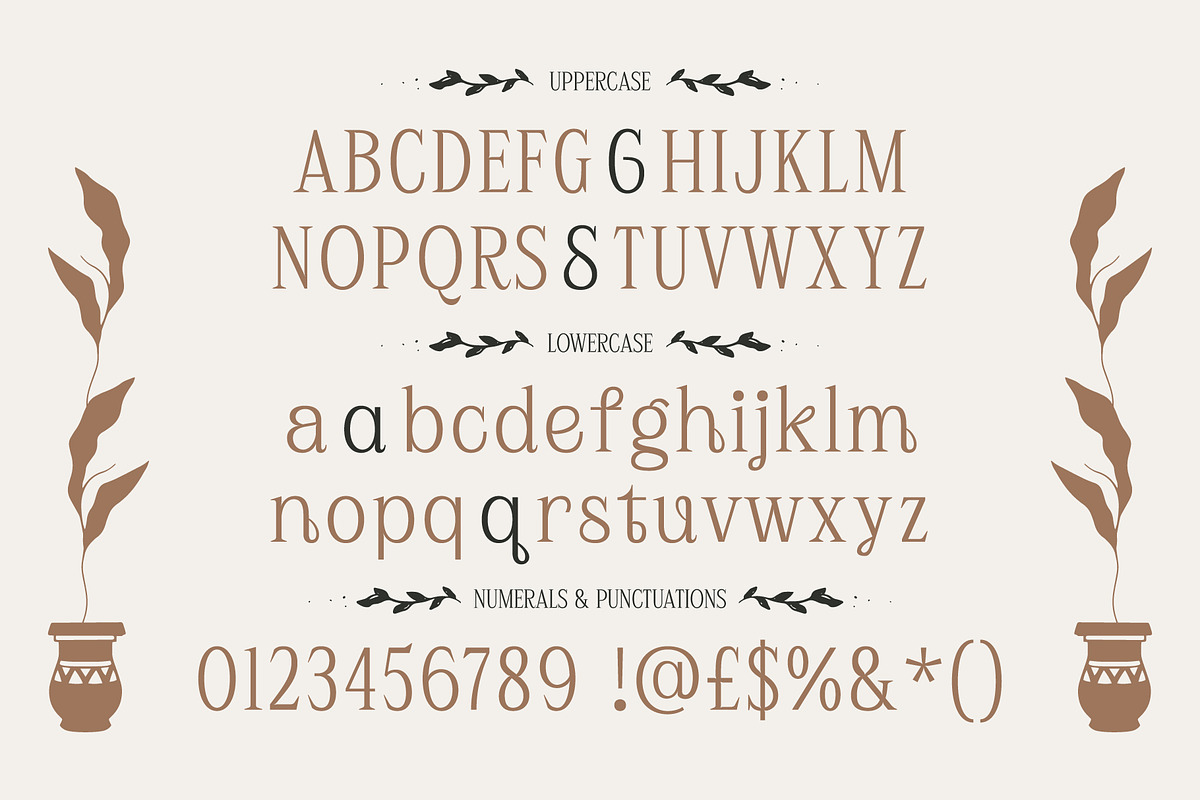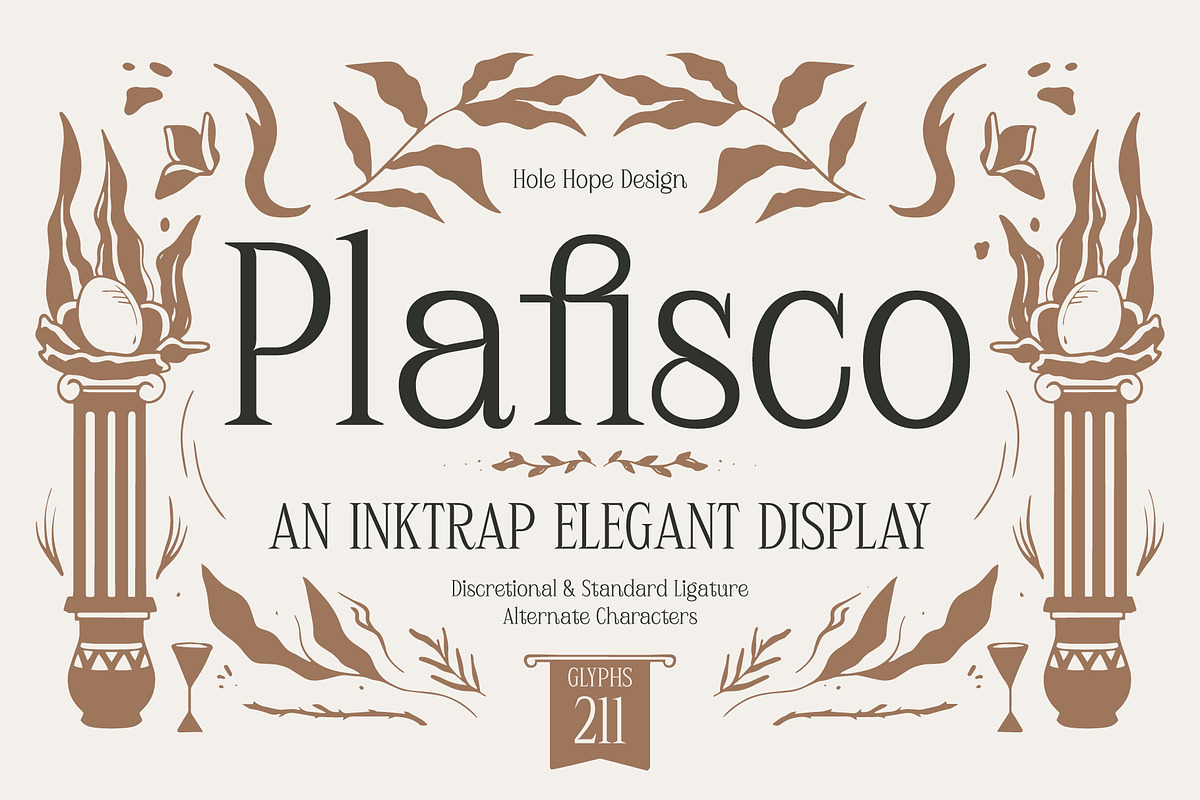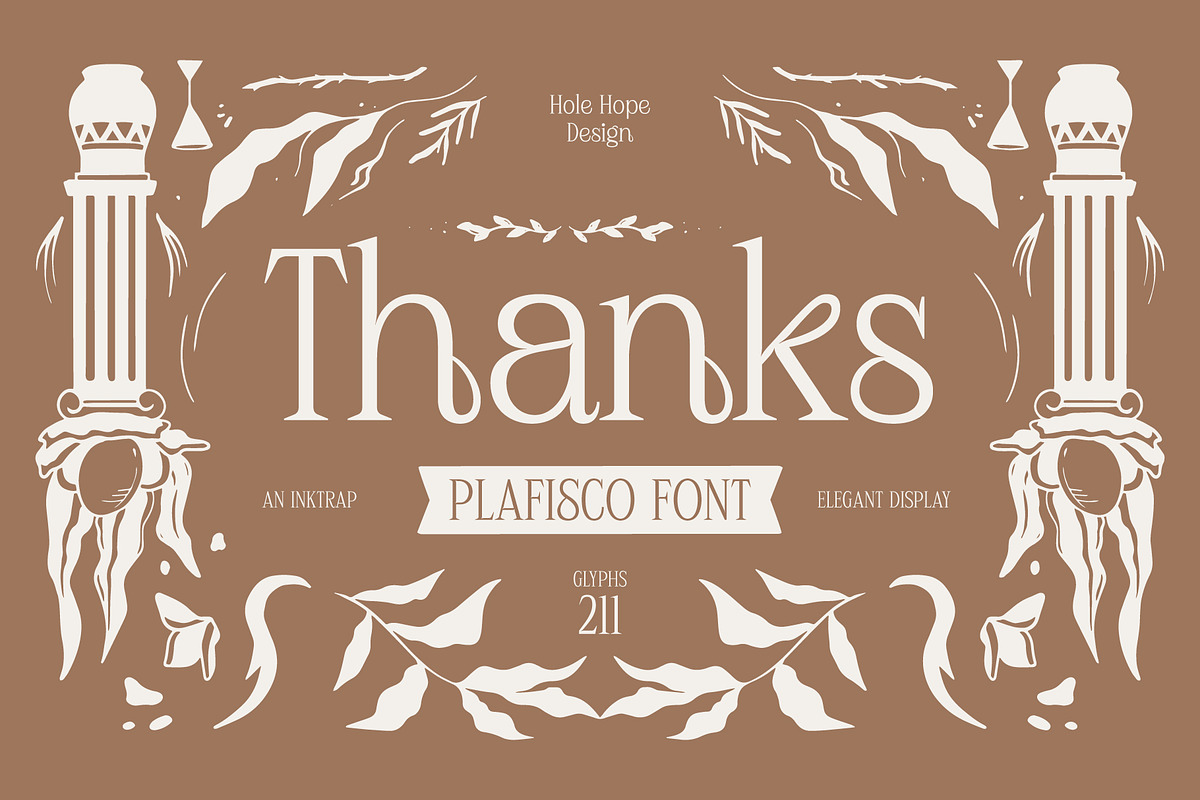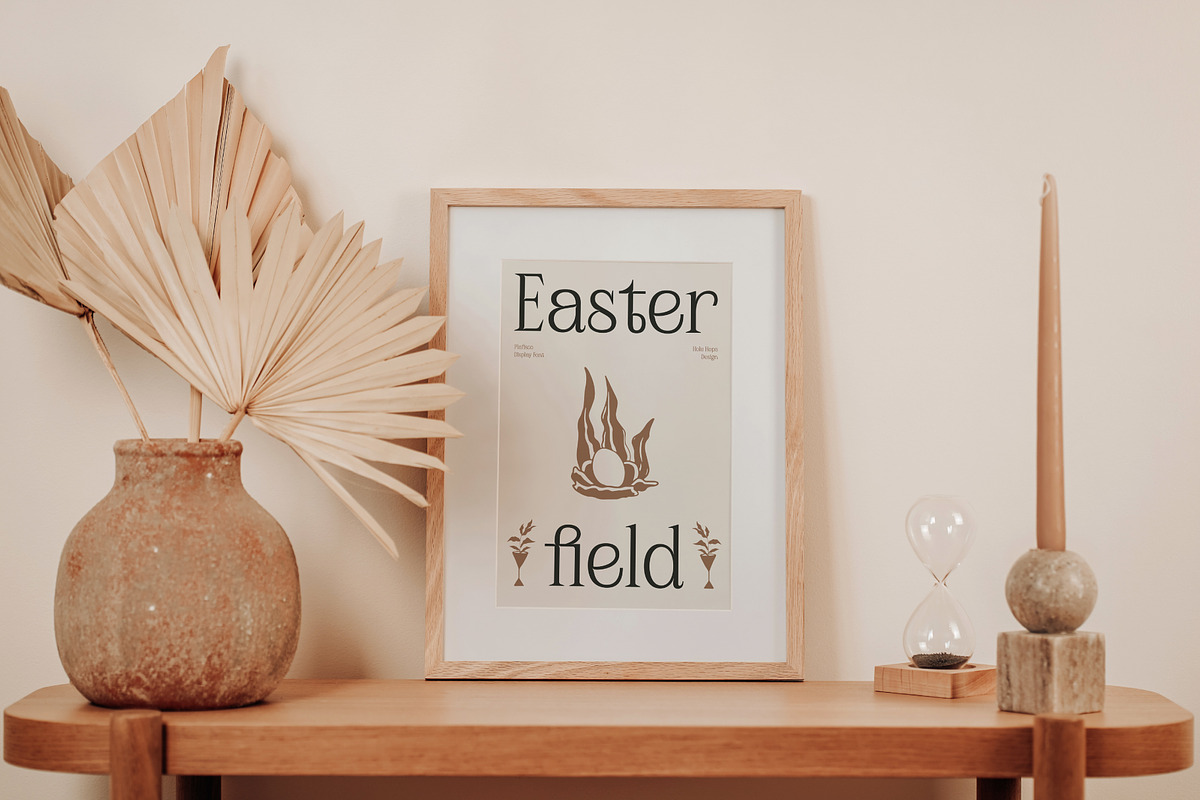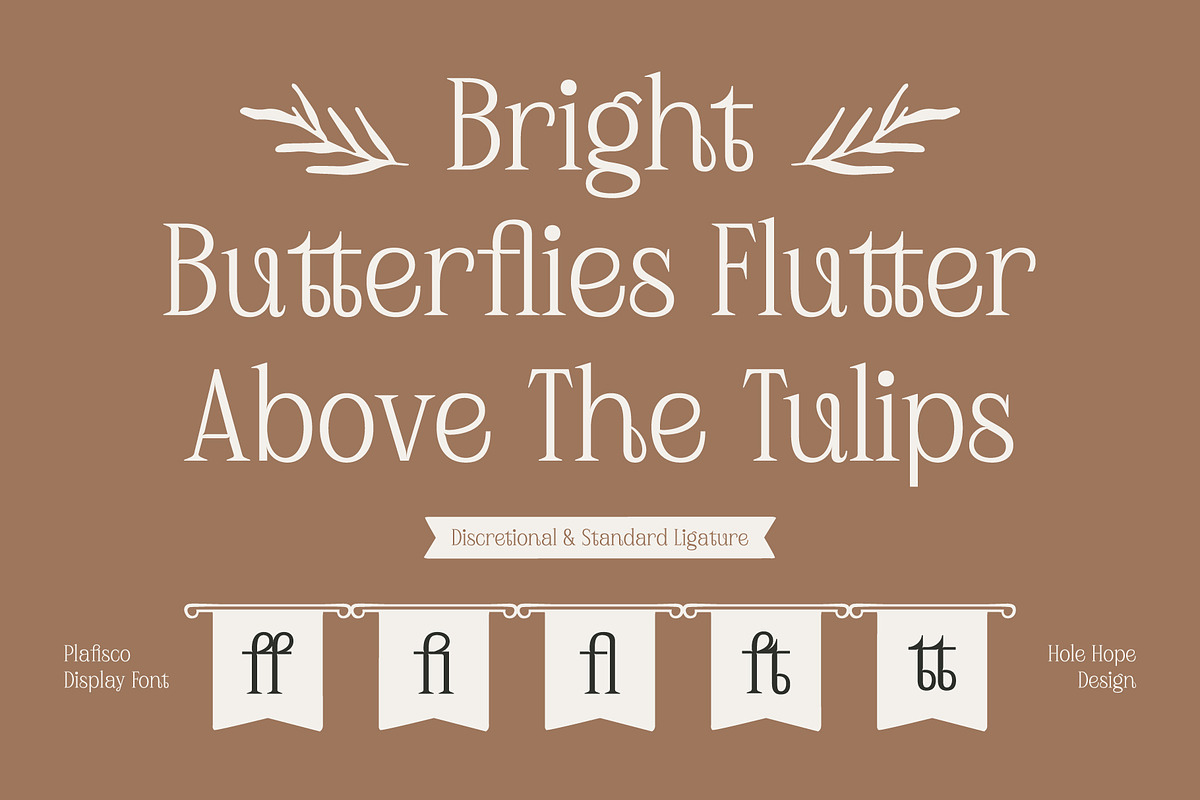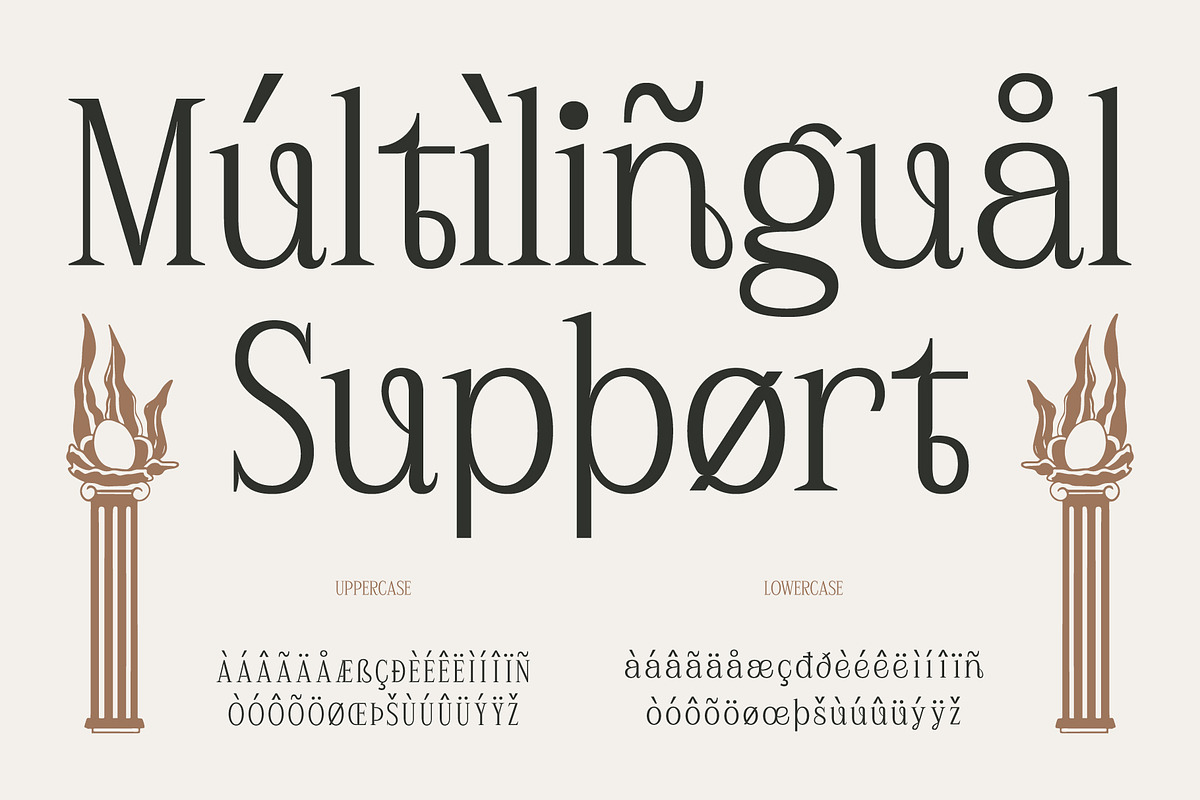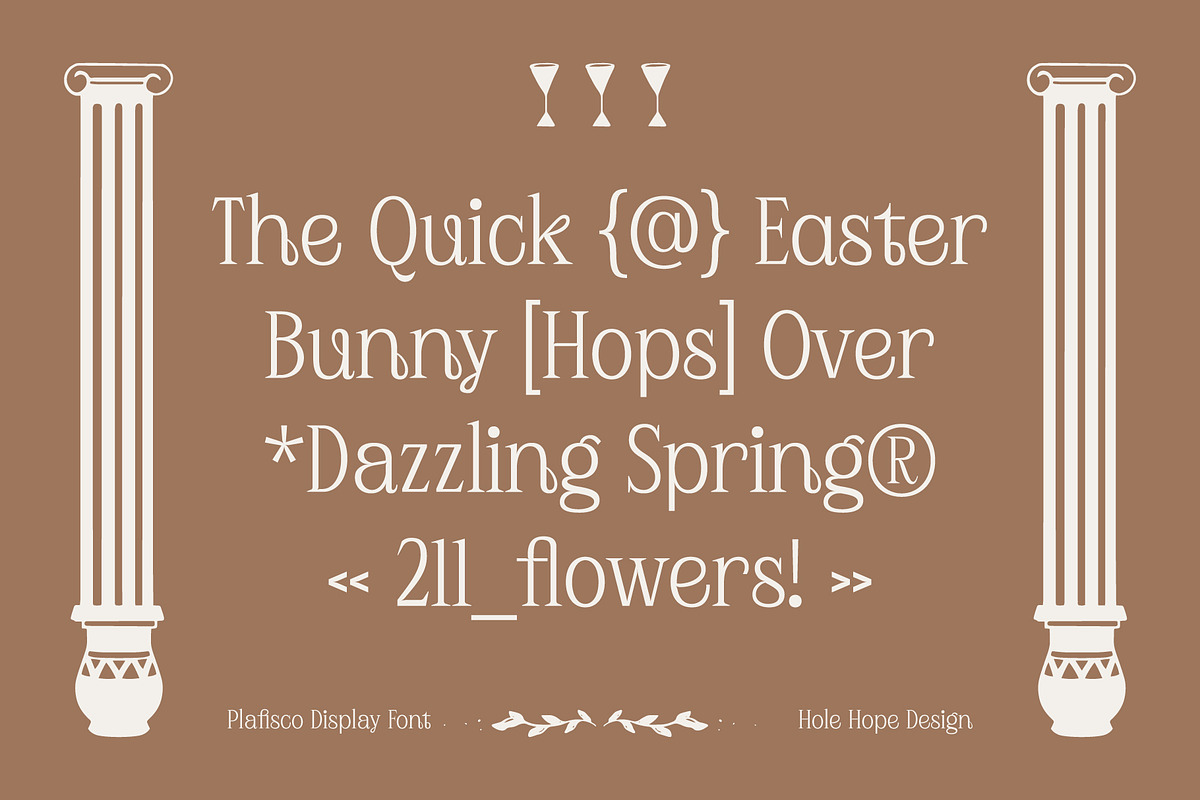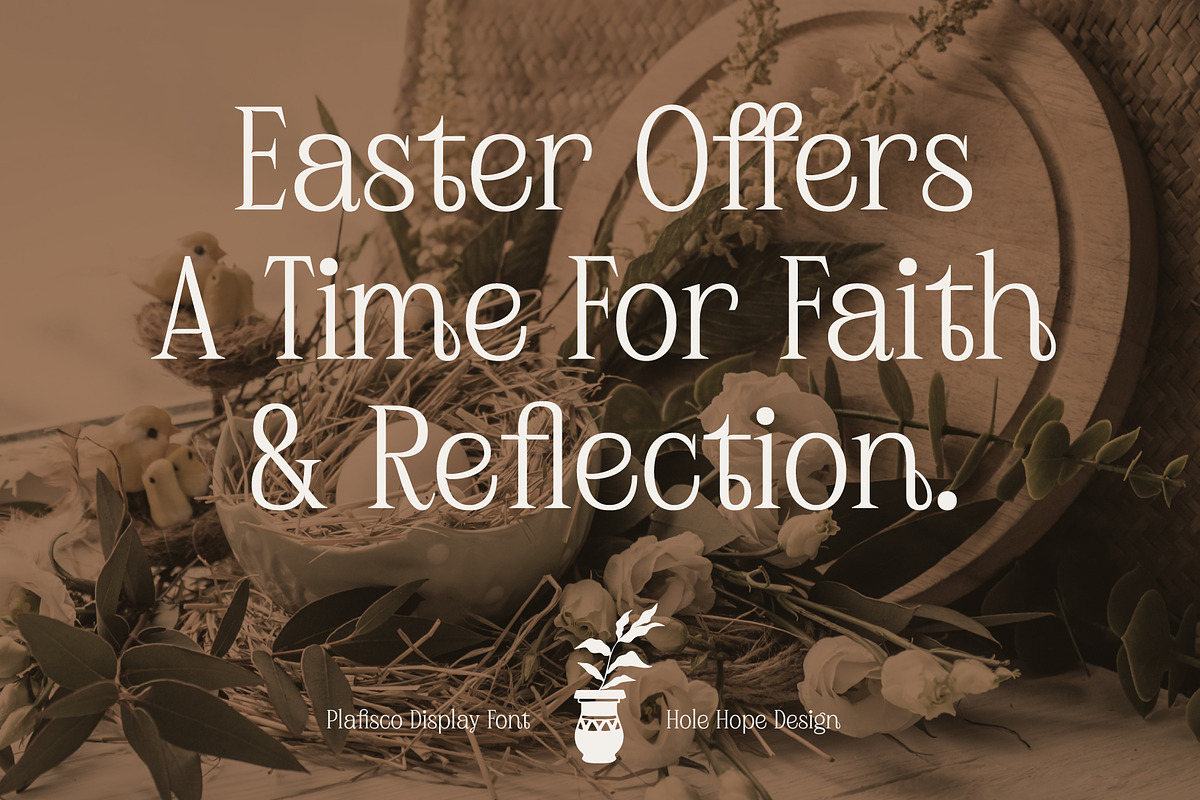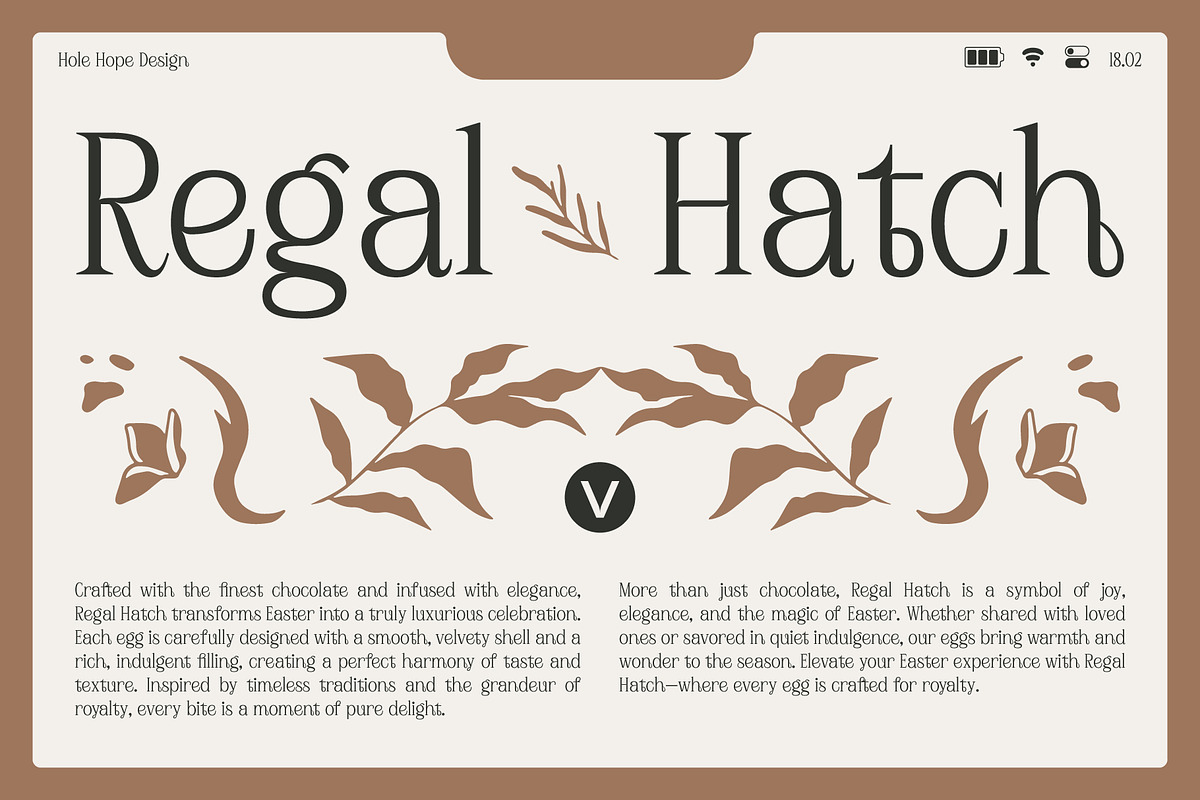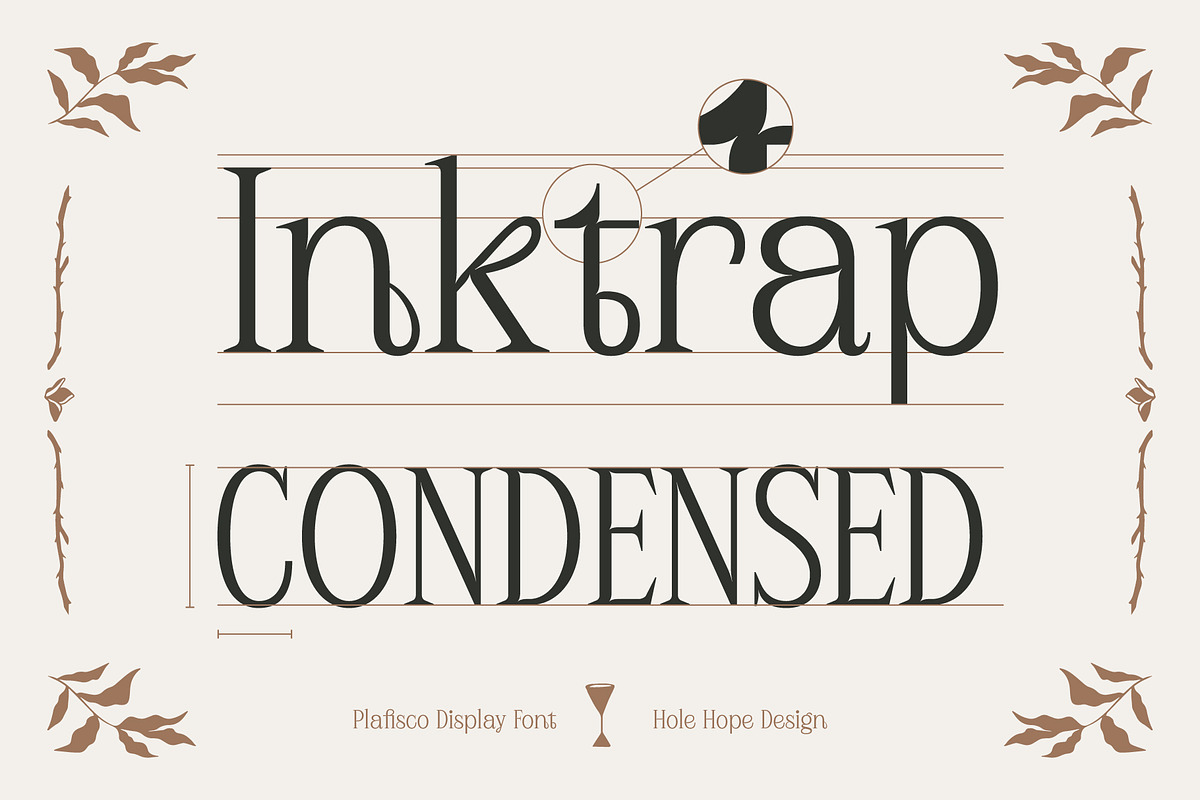
Plafisco | Inktrap Elegant Display
Plafisco | Inktrap Elegant Display Font
Introducing Plafisco Inktrap Elegant Display, a beautifully crafted serif font designed to bring sophistication and contemporary flair to your Easter Day themed designs. With its delicate inktrap details, graceful curves, and refined letterforms, Plafisco Inktrap strikes the perfect balance between classic beauty and modern aesthetics. This font exudes grace and warmth, making it perfect for capturing the essence of the season. Elevate your designs with Plafisco Inktrap and let its timeless elegance shine!
Plafisco | Inktrap Elegant Display Font features:
- Character Set (Uppercase & Lowercase)
- Discretional & Standard Ligature
Dive into the world of Easter Day (Beauty-Serif) and bring the magic to your design!